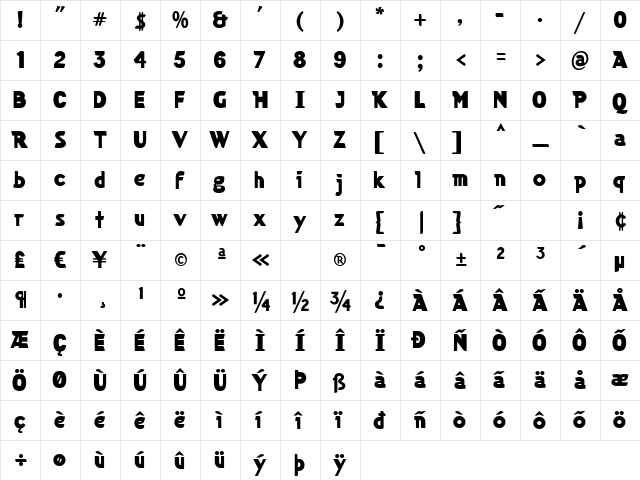
Cuban Black
Design Context for Cuban Typeface
Cuban takes a measured approach to typography — its balanced proportions and neutral character make it a reliable workhorse for both digital and print work.